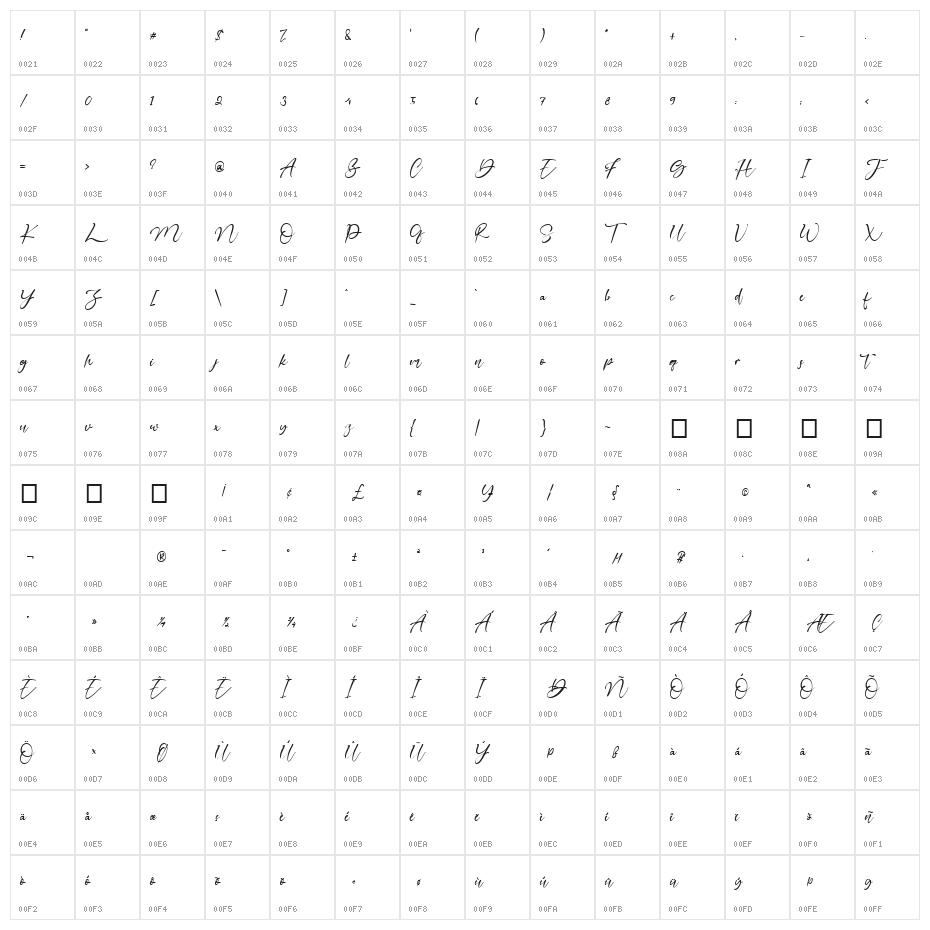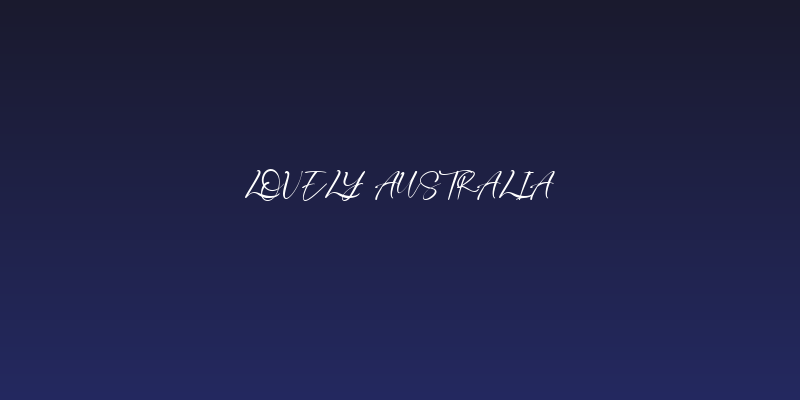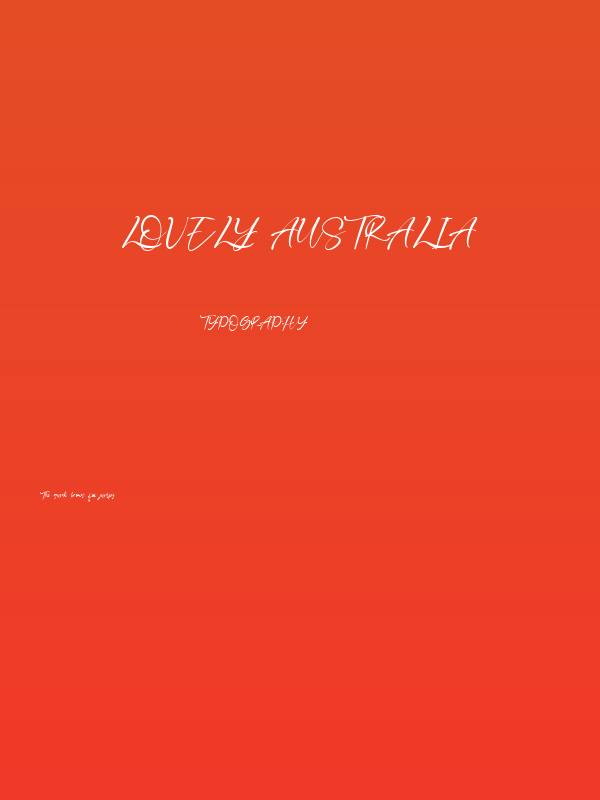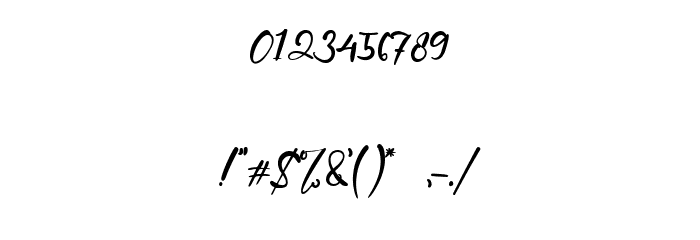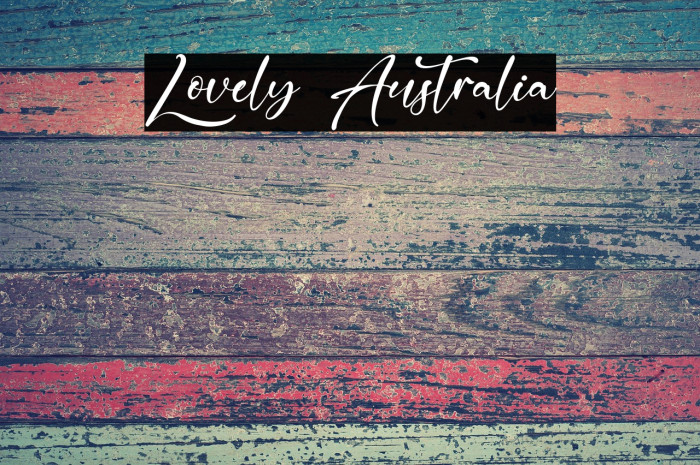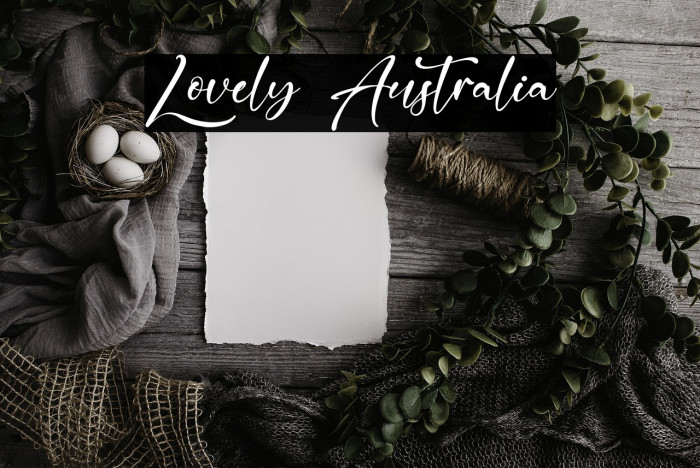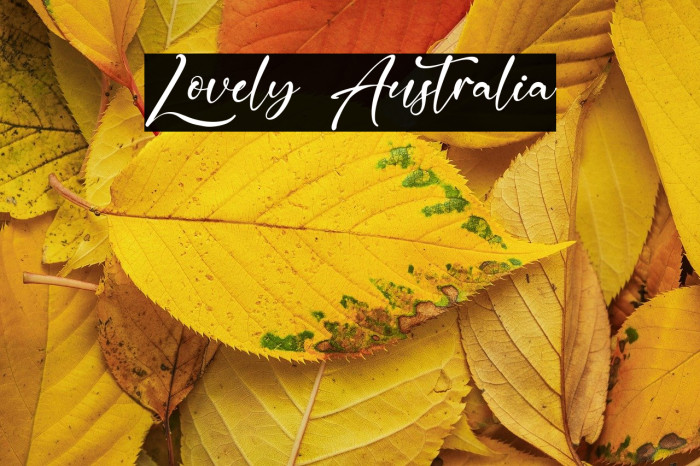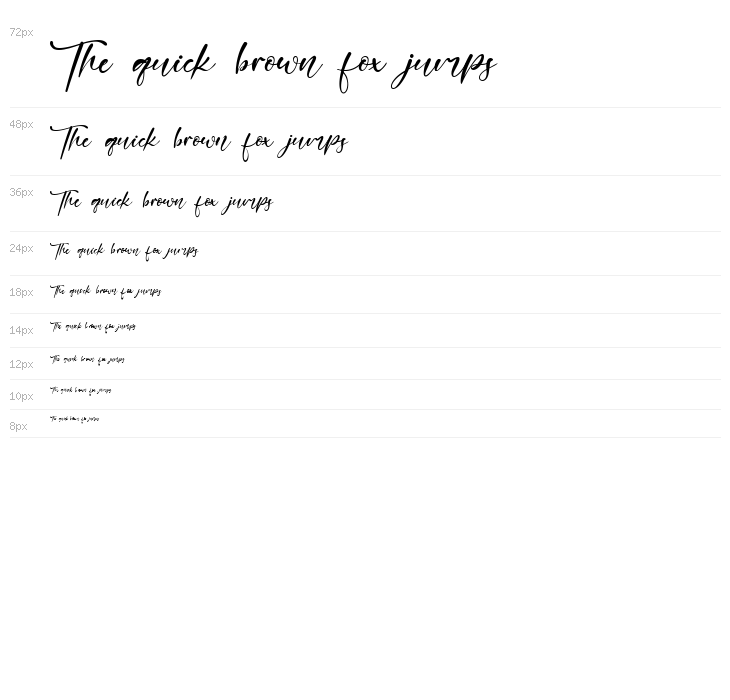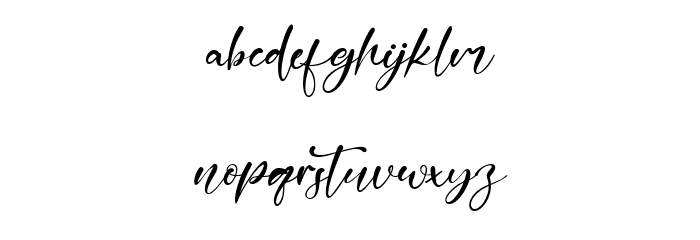
Lovely Australia Font
Lovely Australia Description
This font exudes elegance and sophistication with its flowing, cursive style. The letters are intricately designed with smooth curves and delicate loops, giving it a handwritten feel. The uppercase letters are bold and prominent, while the lowercase letters maintain a graceful continuity. The numbers and special characters are consistent with the overall aesthetic, ensuring a cohesive look. This font is perfect for projects that require a touch of class and refinement, such as wedding invitations, branding materials, and elegant signage.
| Overall Style | Elegant |
| Use Case | Logos, Invitations, Decorative text |
| Proposed Projects | Ideal for wedding invitations, elegant branding, and refined signage. |